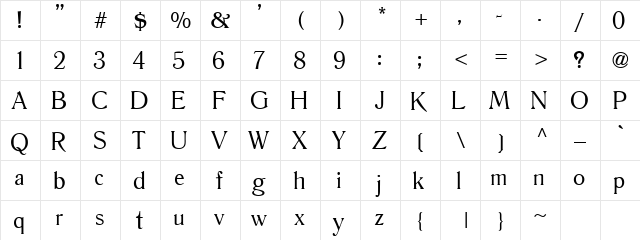
Tancred Regular Font Preview
Tancred Regular
Design Context for Tancred Typeface
Tancred takes a measured approach to typography — its balanced proportions and neutral character make it a reliable workhorse for both digital and print work.